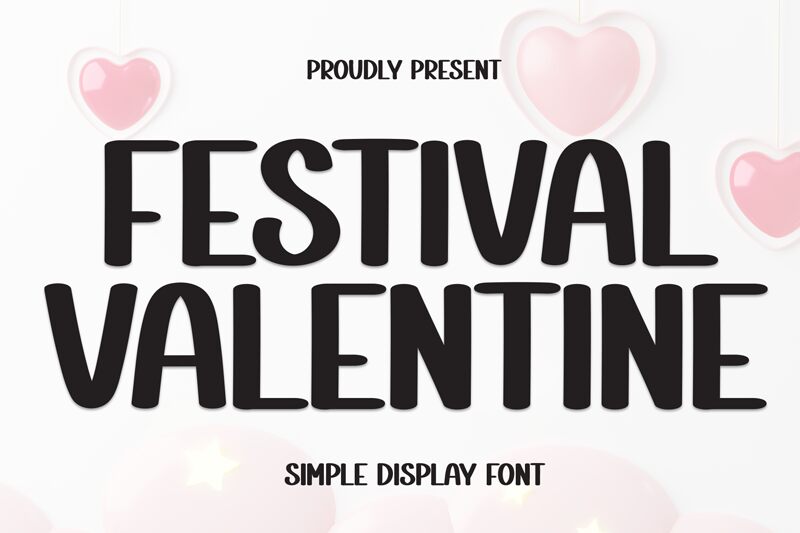
Festival Valentine
Festival Valentine font by Scratchones is a retro-inspired handwritten font with a playful yet structured look. It has an organic flow and strong vertical orientation, resulting in a charming design. The low contrast between the strokes of the glyphs makes this font elegant and eye-pleasing.
This free handwritten font works well for branding designs, invitations, headlines, packaging designs, social media posts, and many more. Include it in your digital artwork projects such as websites or apps UI design for extra creativity!